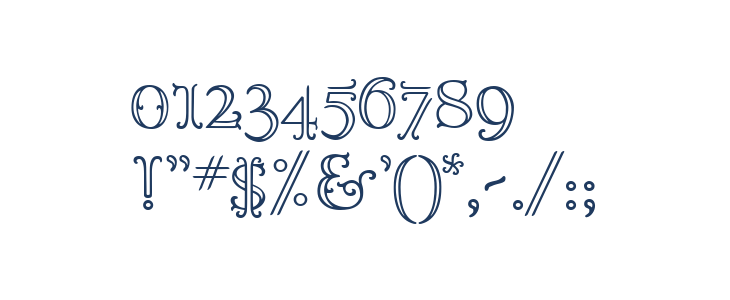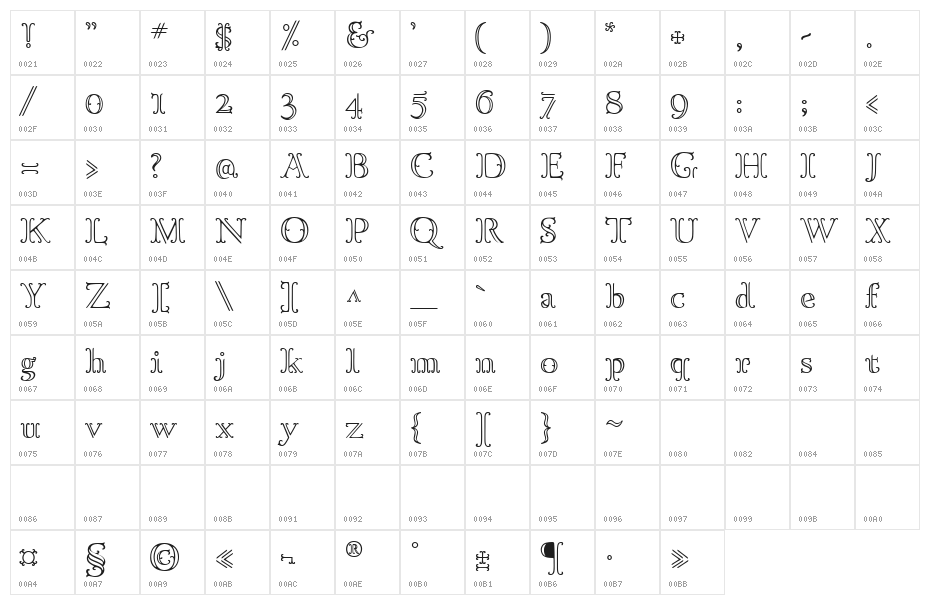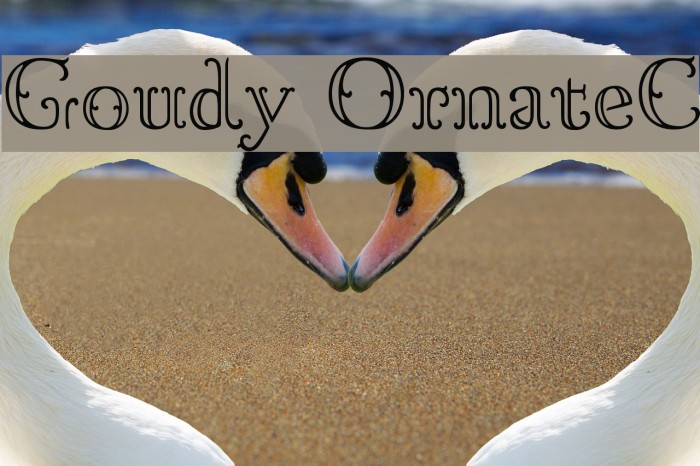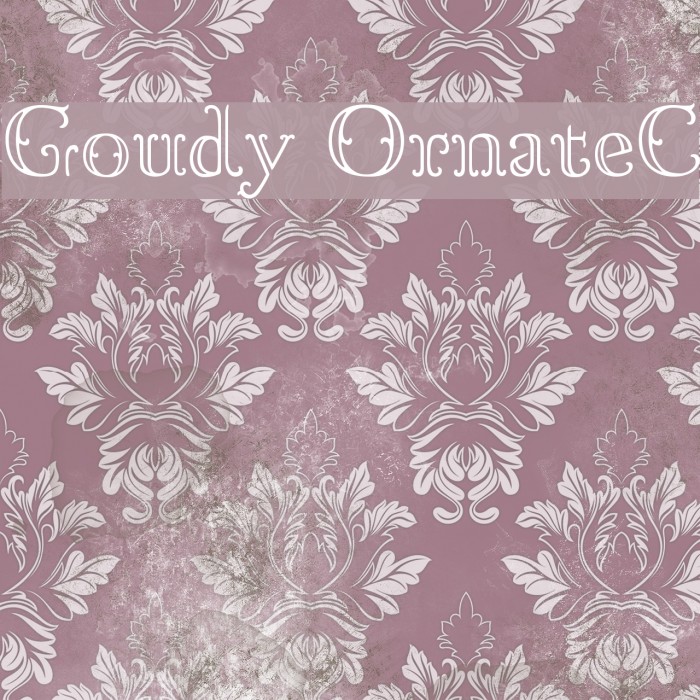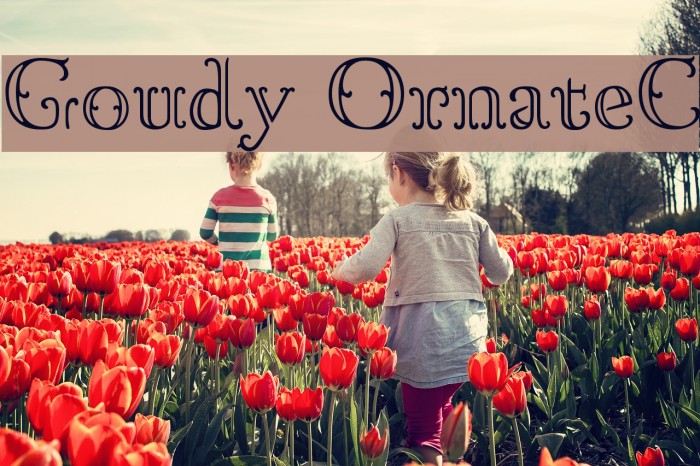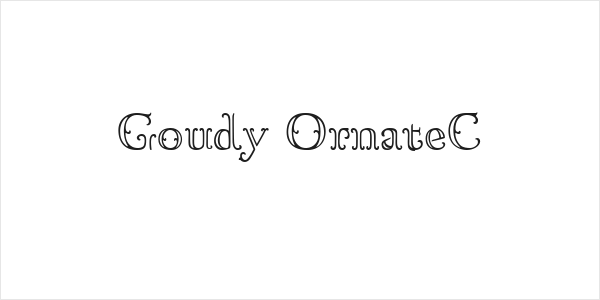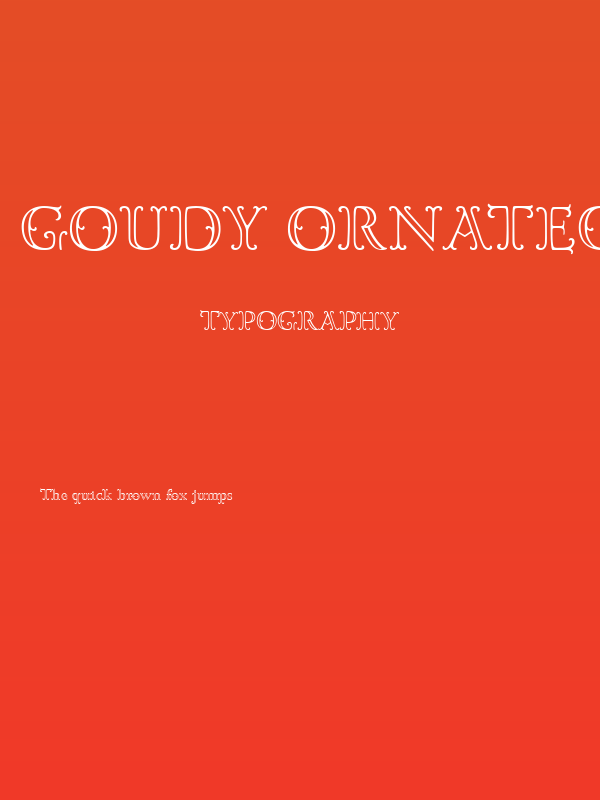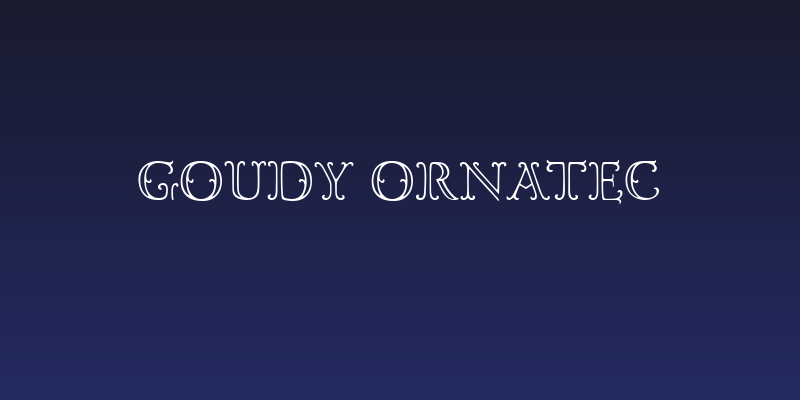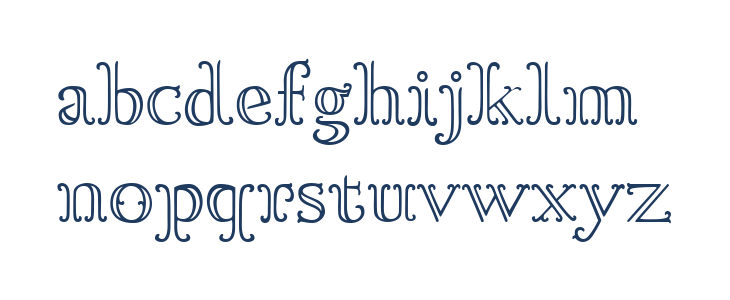
Goudy OrnateC Font
Goudy OrnateC Description
This font features an ornate and decorative style, characterized by its intricate and flowing design elements. The uppercase letters exhibit a unique blend of curves and sharp edges, giving them a sophisticated and elegant appearance. The lowercase letters maintain a consistent style, with delicate flourishes that enhance their visual appeal. Numbers and special characters are designed with the same attention to detail, ensuring a cohesive look across all elements. This font's distinctiveness makes it suitable for projects that require a touch of elegance and creativity.